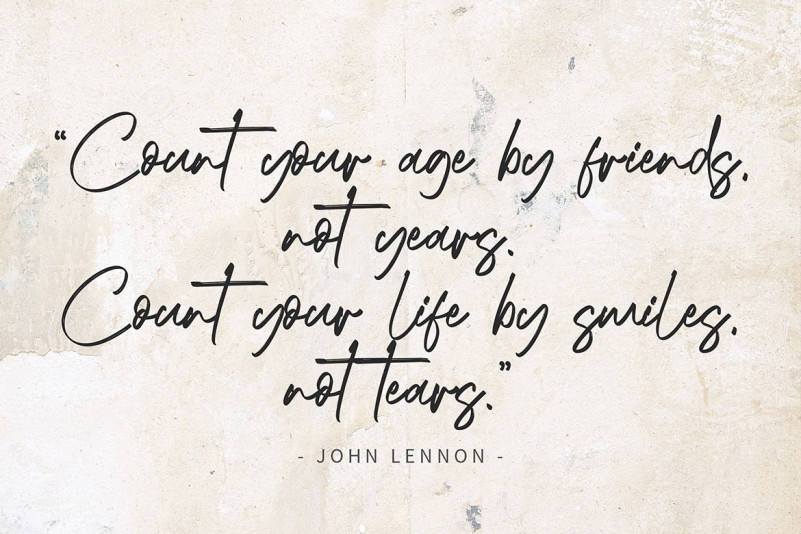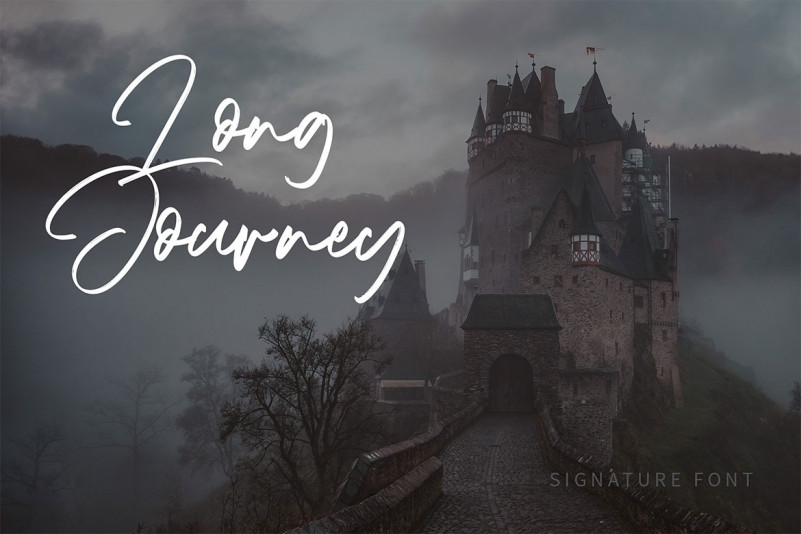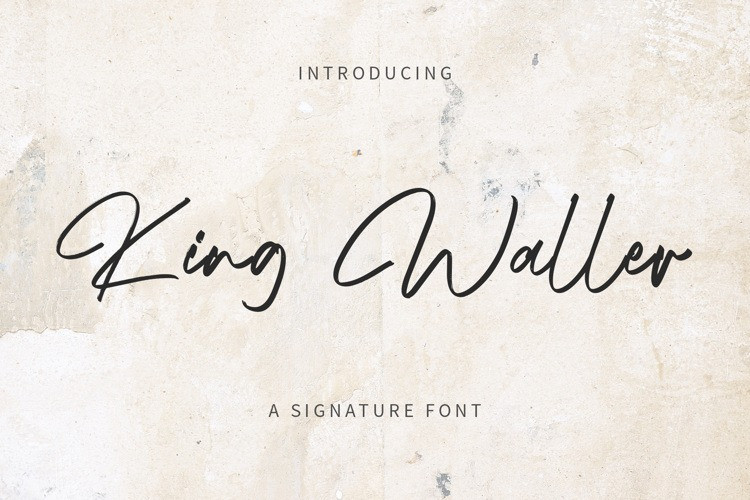
King Waller Handwritten Font
King Waller is a simple signature handwritten font. Great font for fashion, apparel projects, signature, album cover, logo, branding, magazine, social media, & advertisements, but also works great for other projects.